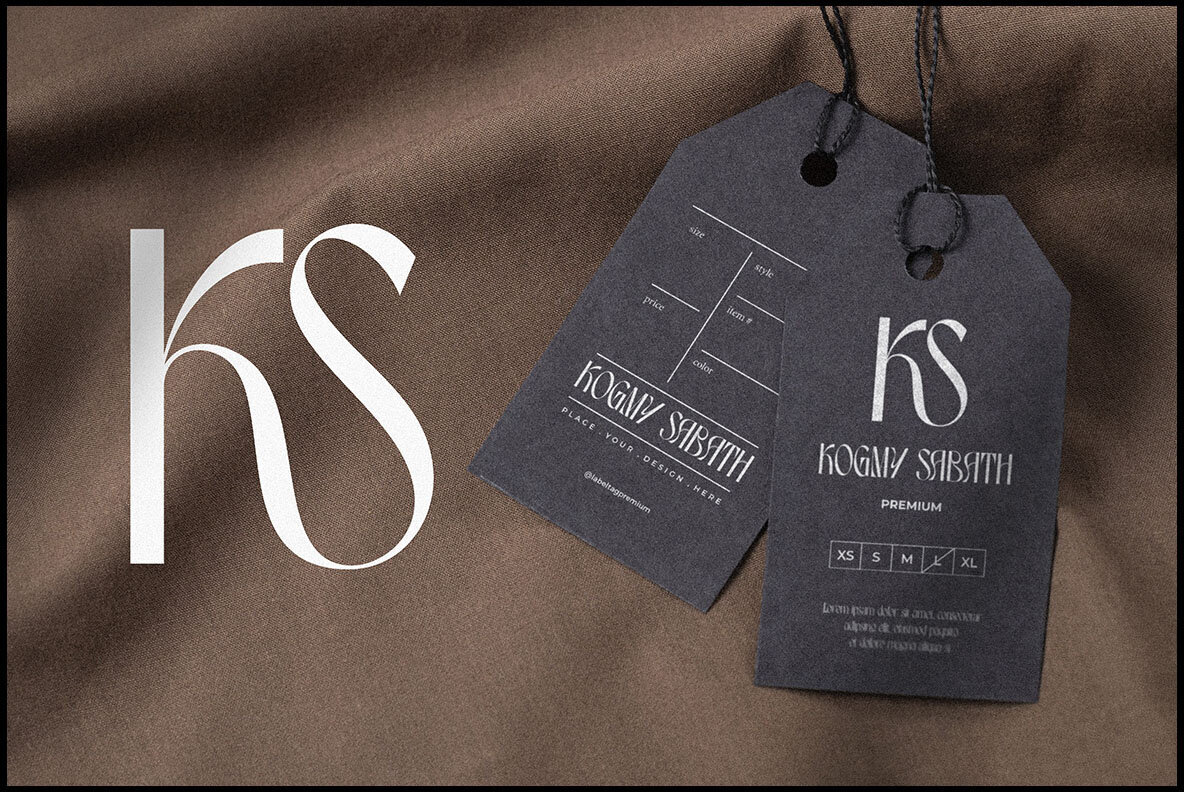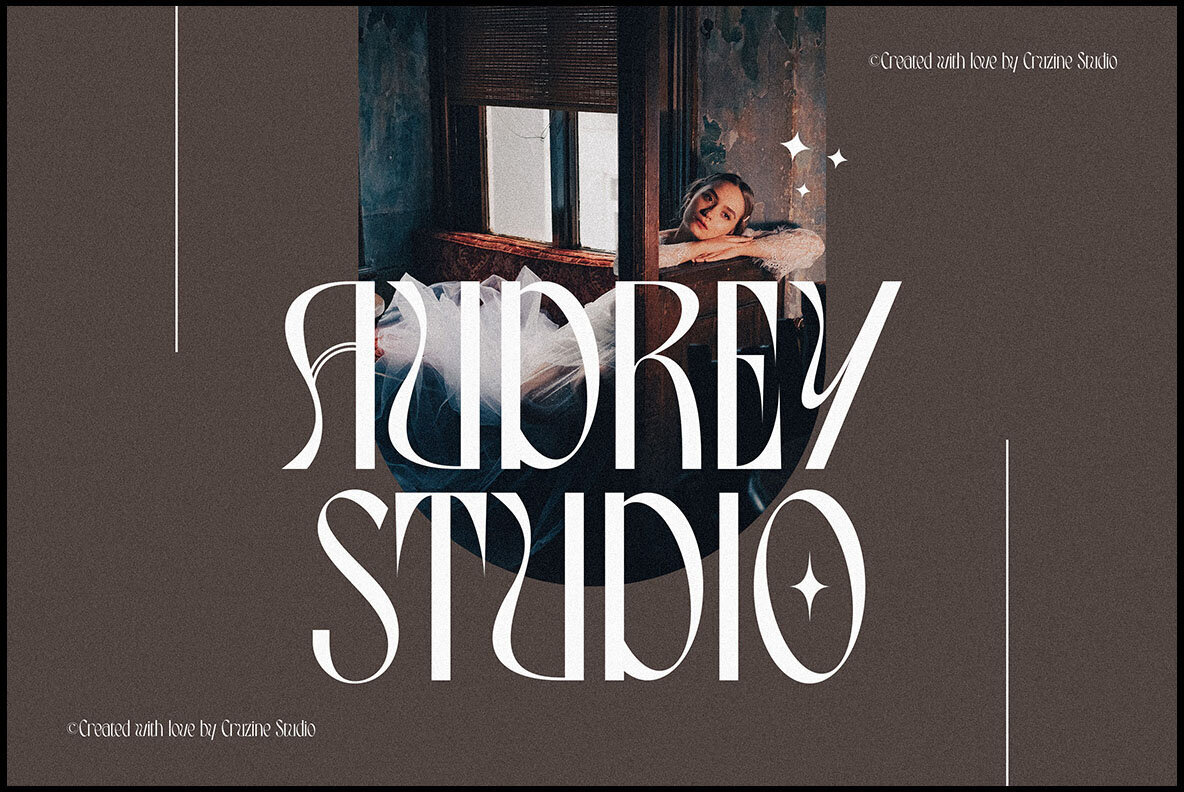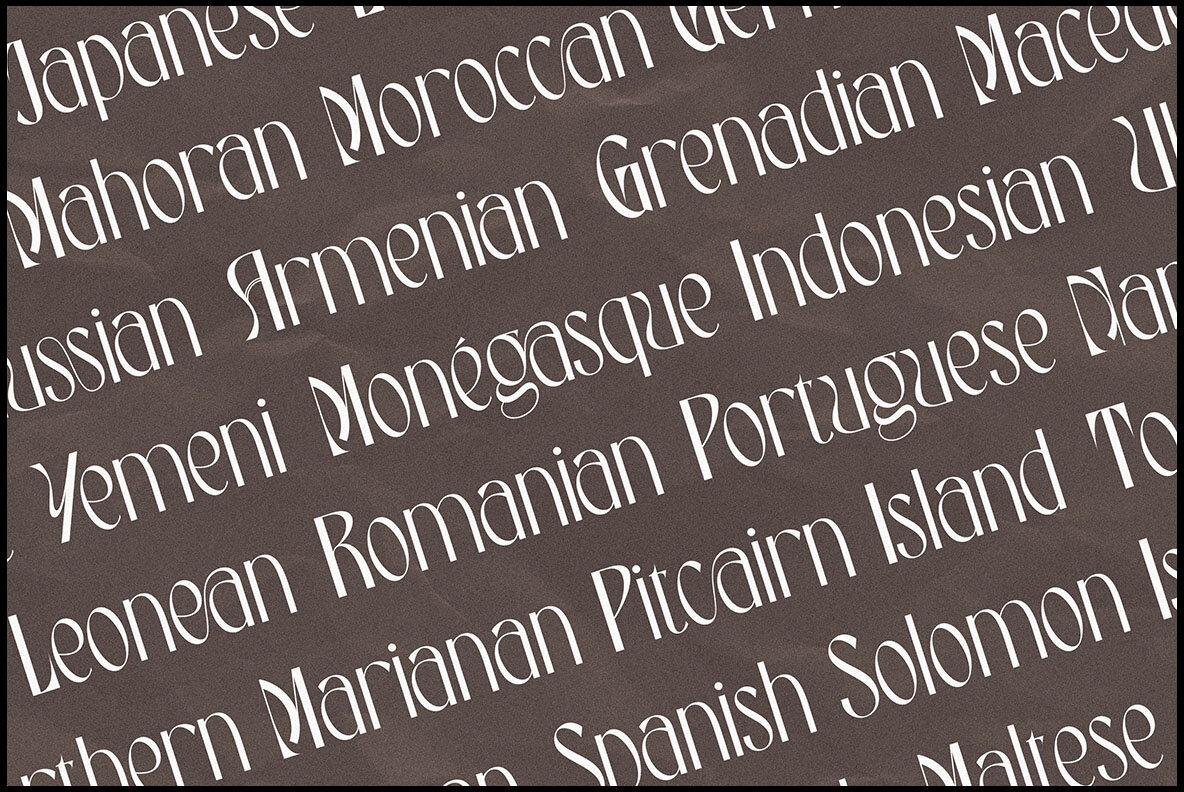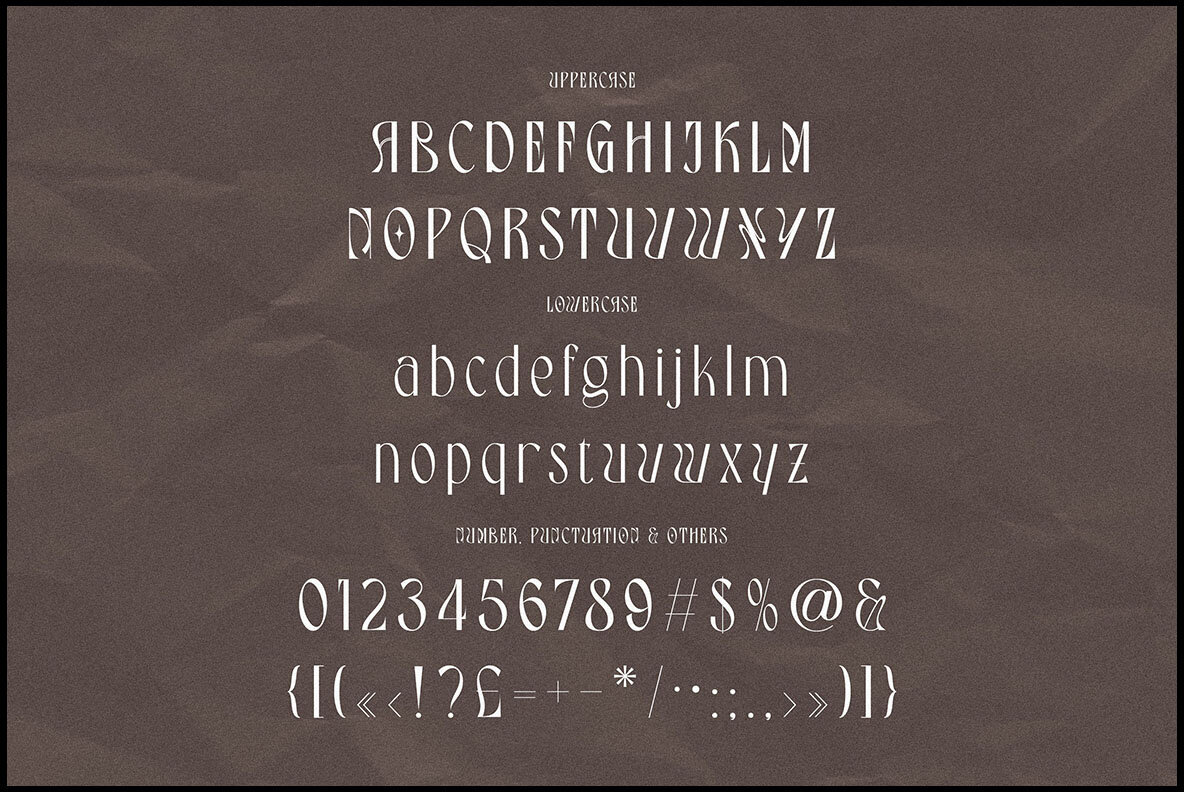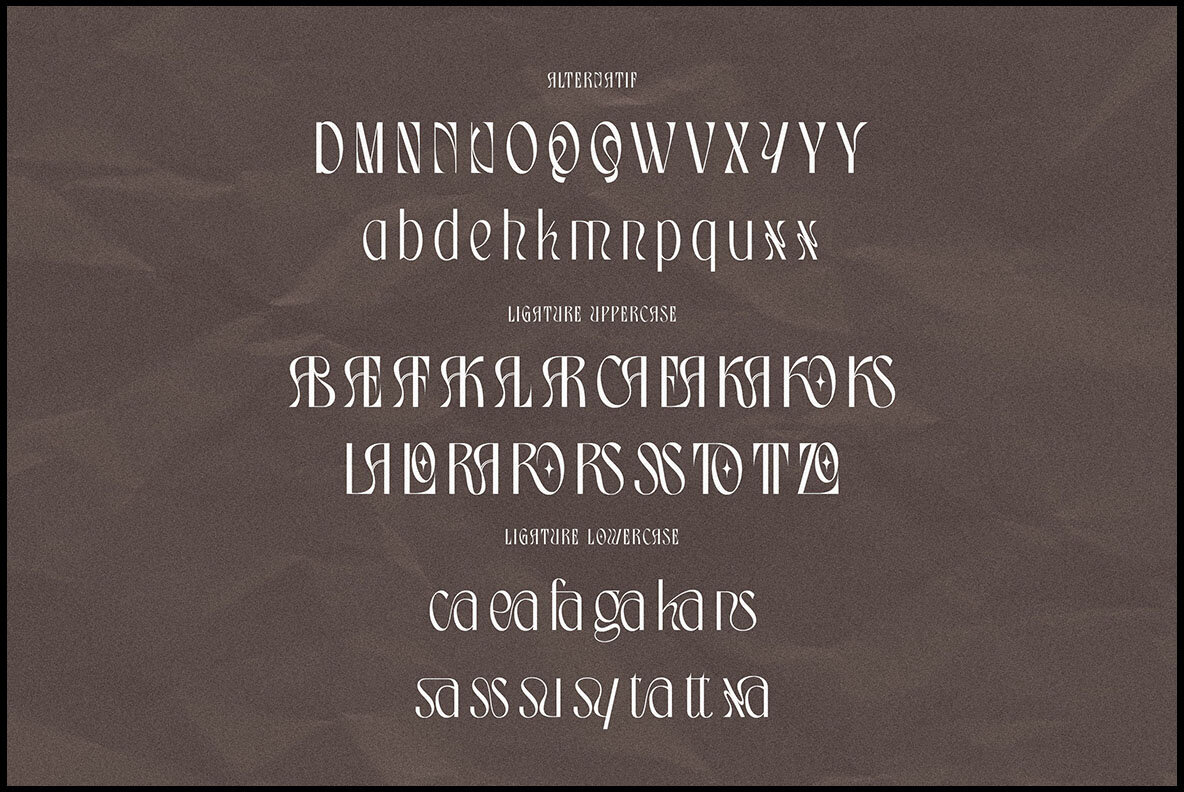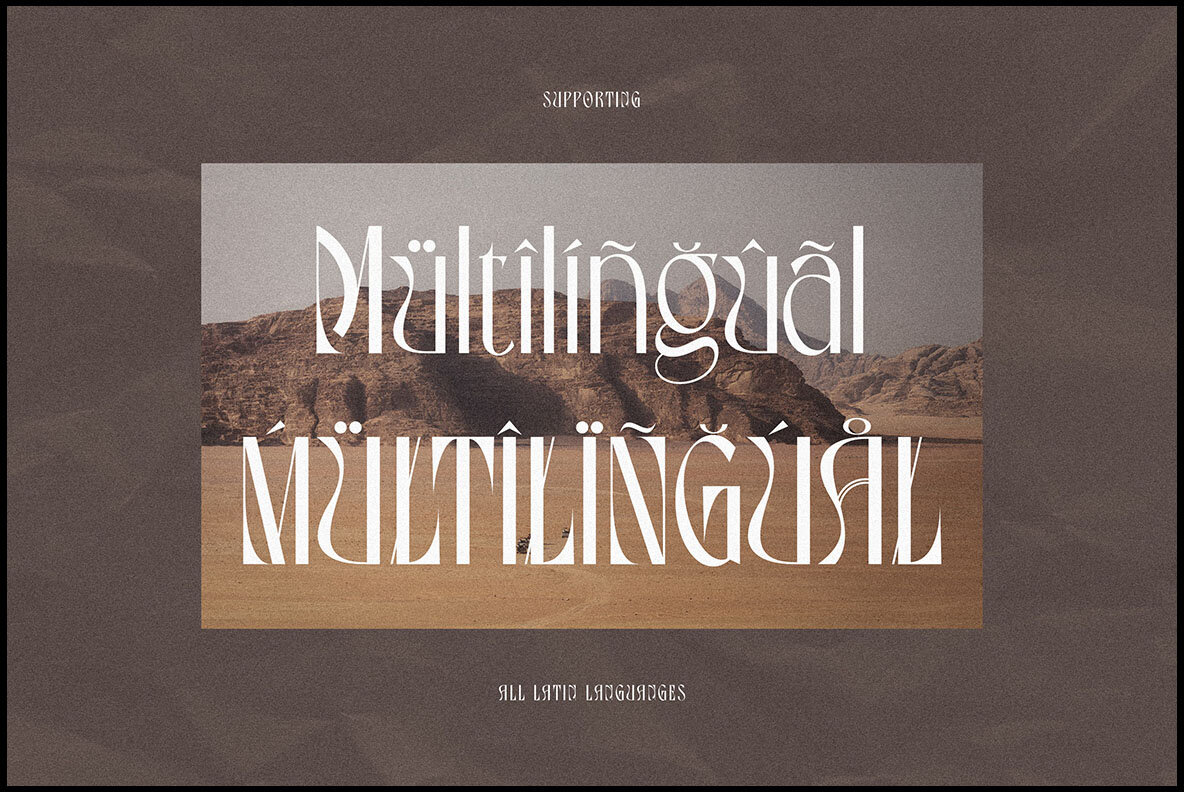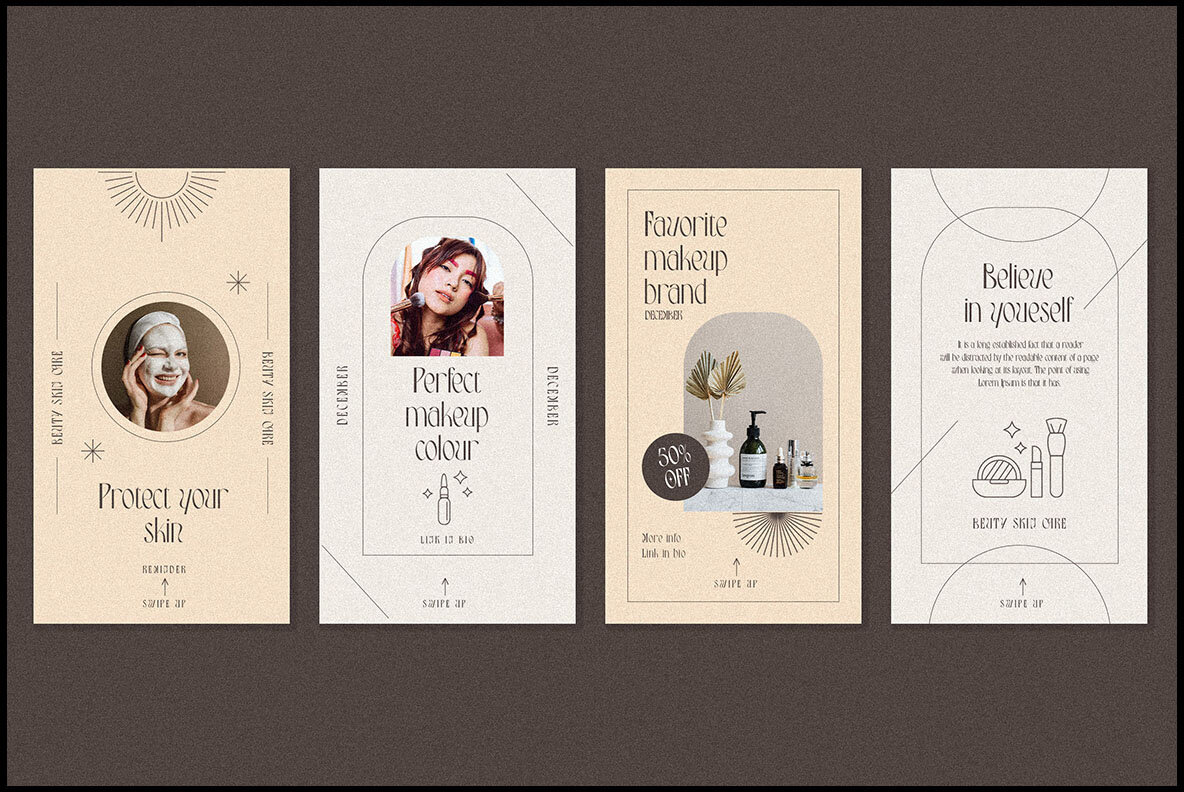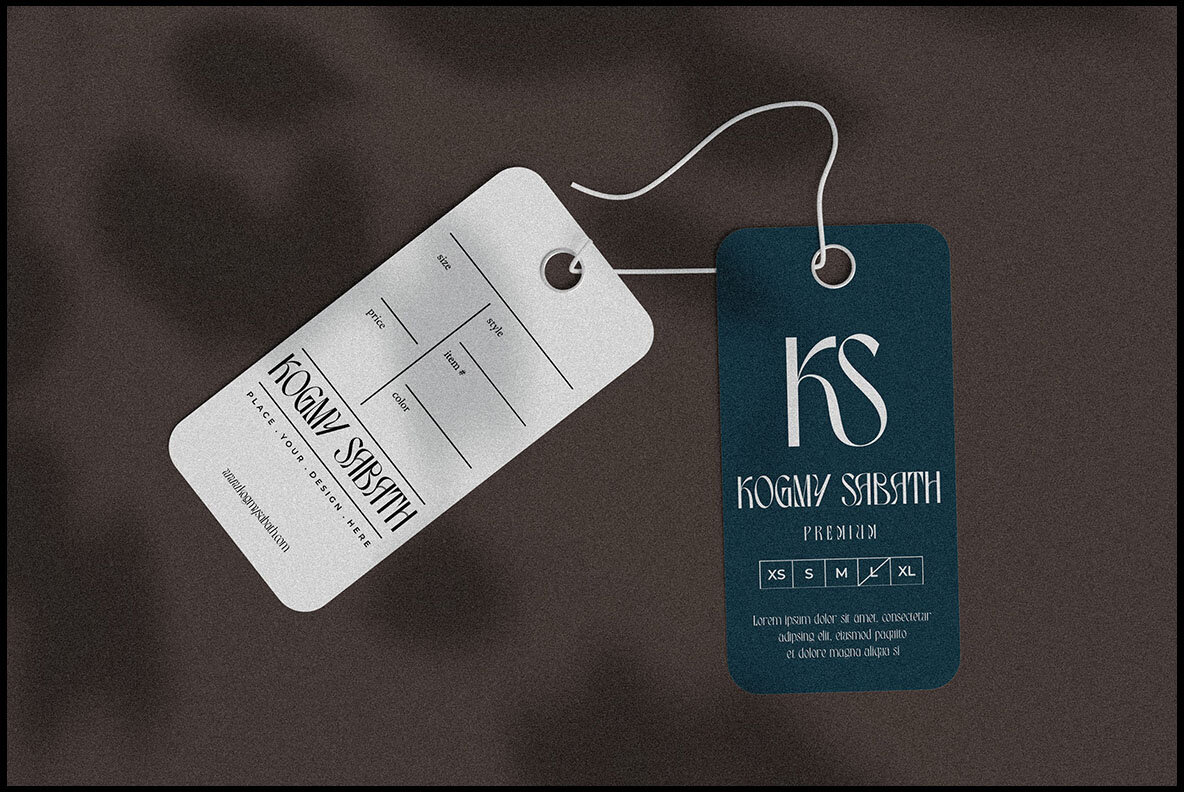
Cassnoary Font
CASSNOARY Regular
Cassnoary offers a modern blend of elegance and artistic flair, making it an ideal choice for vibrant branding projects. Its unique style brings a funky and stylish edge to any creative endeavor, whether you're designing a new logo or crafting a captivating website header. Explore endless possibilities with Cassnoary.Cassnoary: A Trendy and Groovy Font by Peter Olexa
Features of Cassnoary